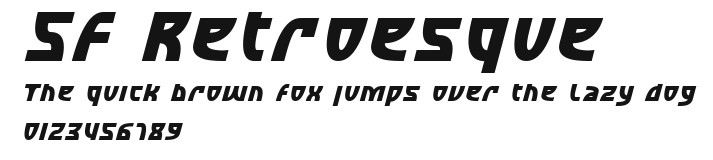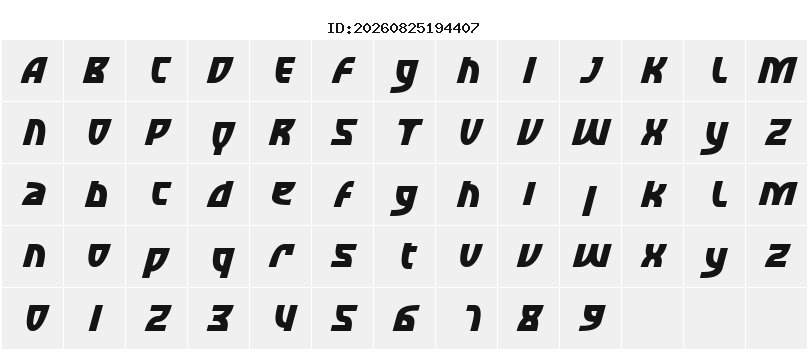
SF Retroesque Preview
• Font Name: SF Retroesque
• Font ID: ShyFontsTypeFoundry: SF Retroesque Bold Italic: 1999
• Full Font Name: SF Retroesque Bold Italic
• PostScript Name: SFRetroesque-BoldItalic
• Character Count: 235
About SF Retroesque.ttf
SF Retroesque.ttf is a modern, elegant sans-serif font designed for ultimate readability and visual harmony. Perfect for branding, headlines, web design, and print materials.